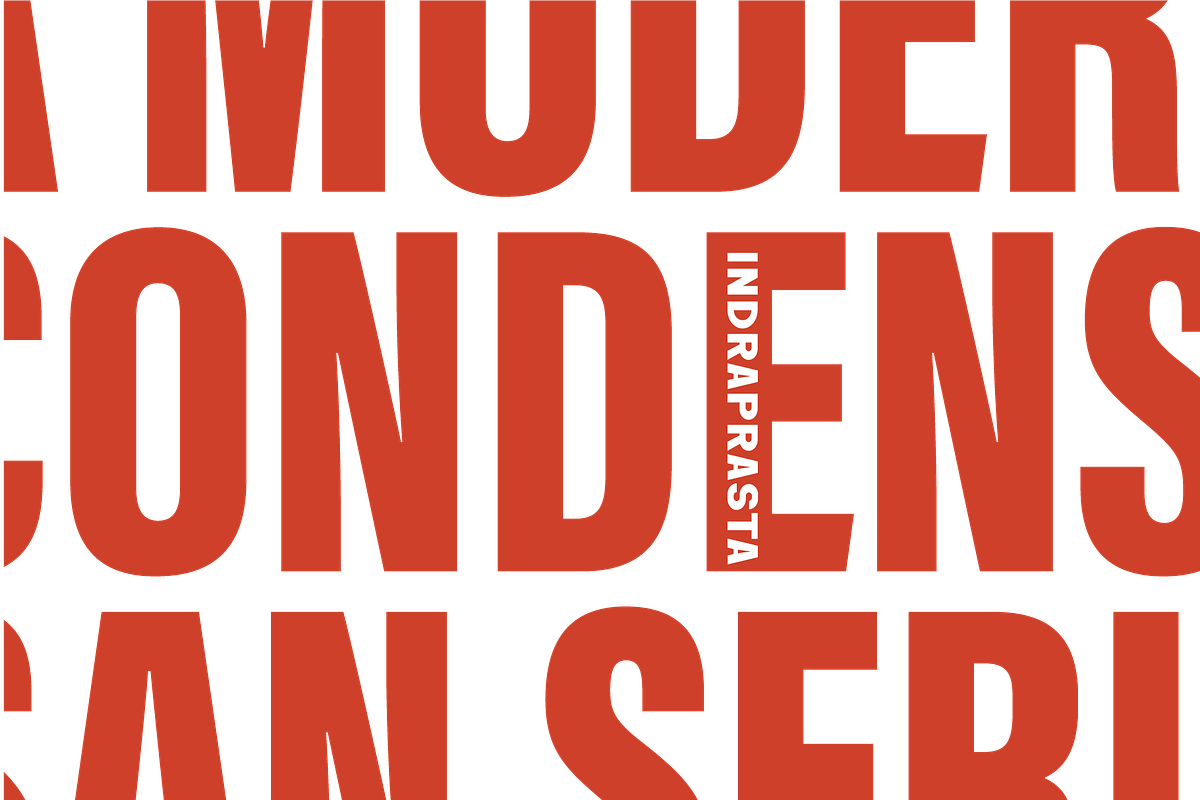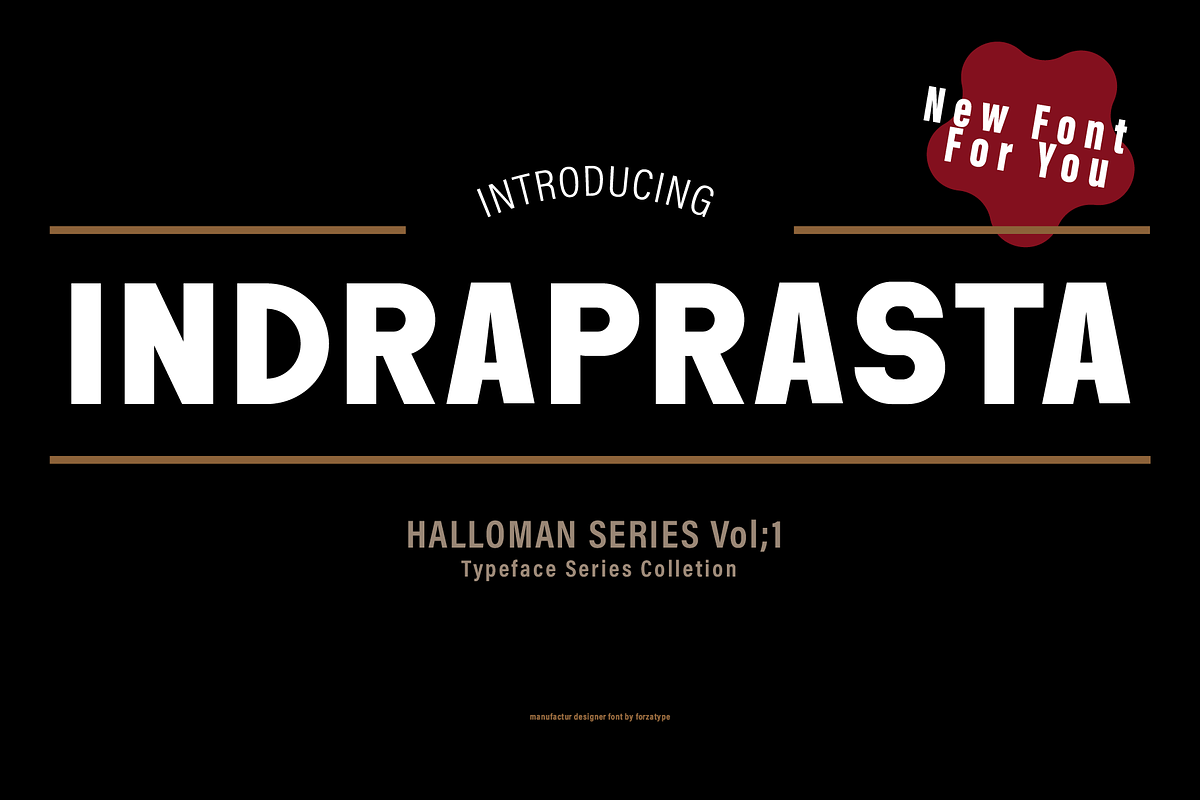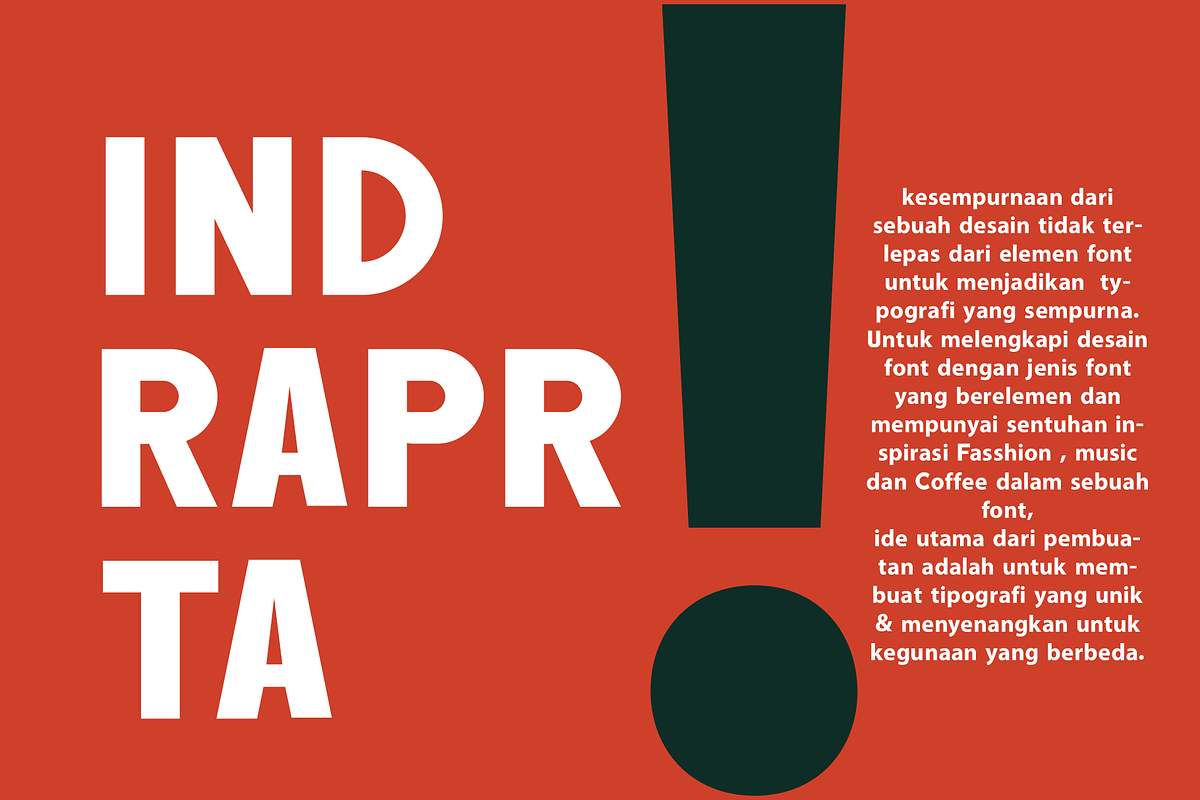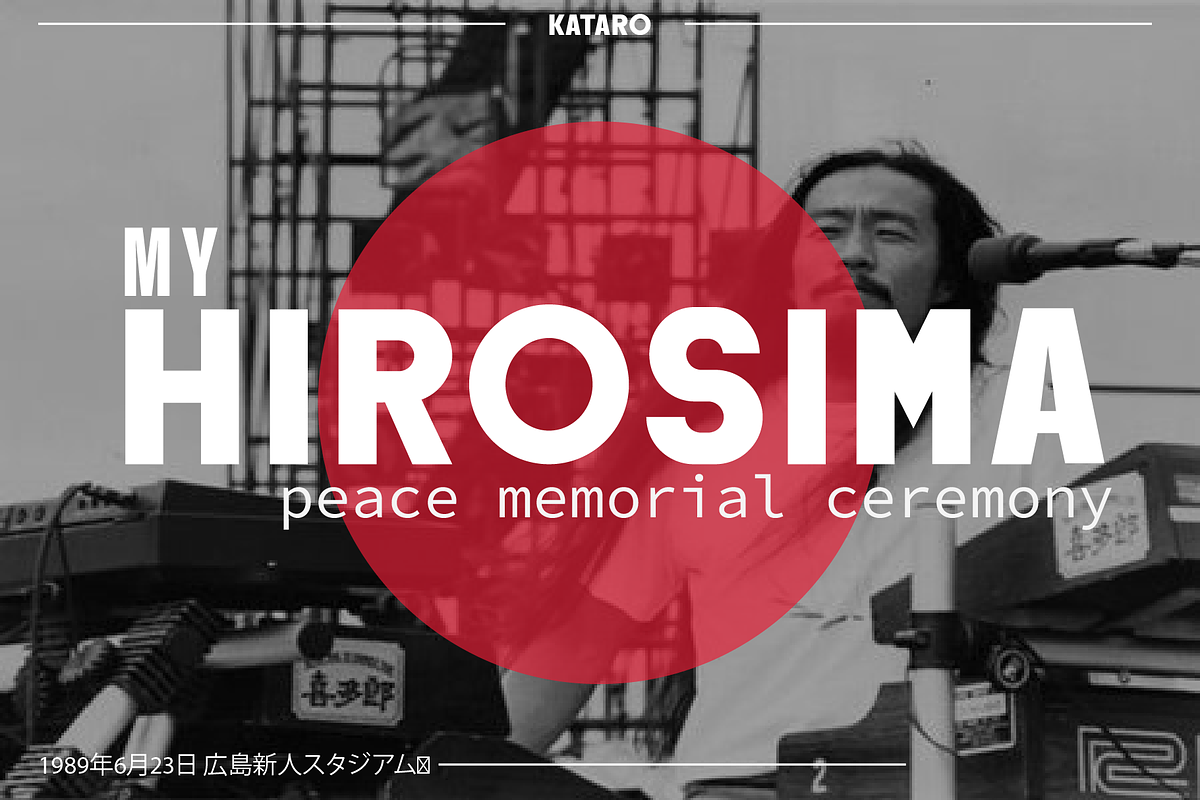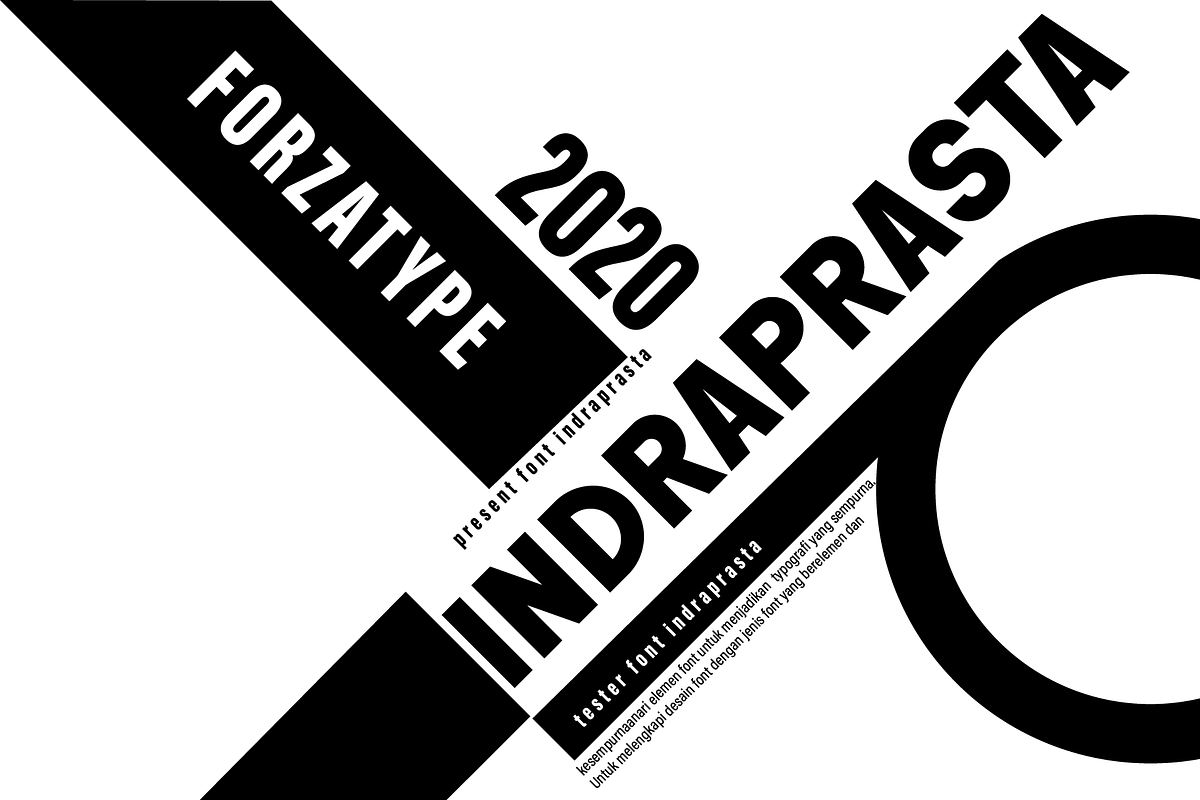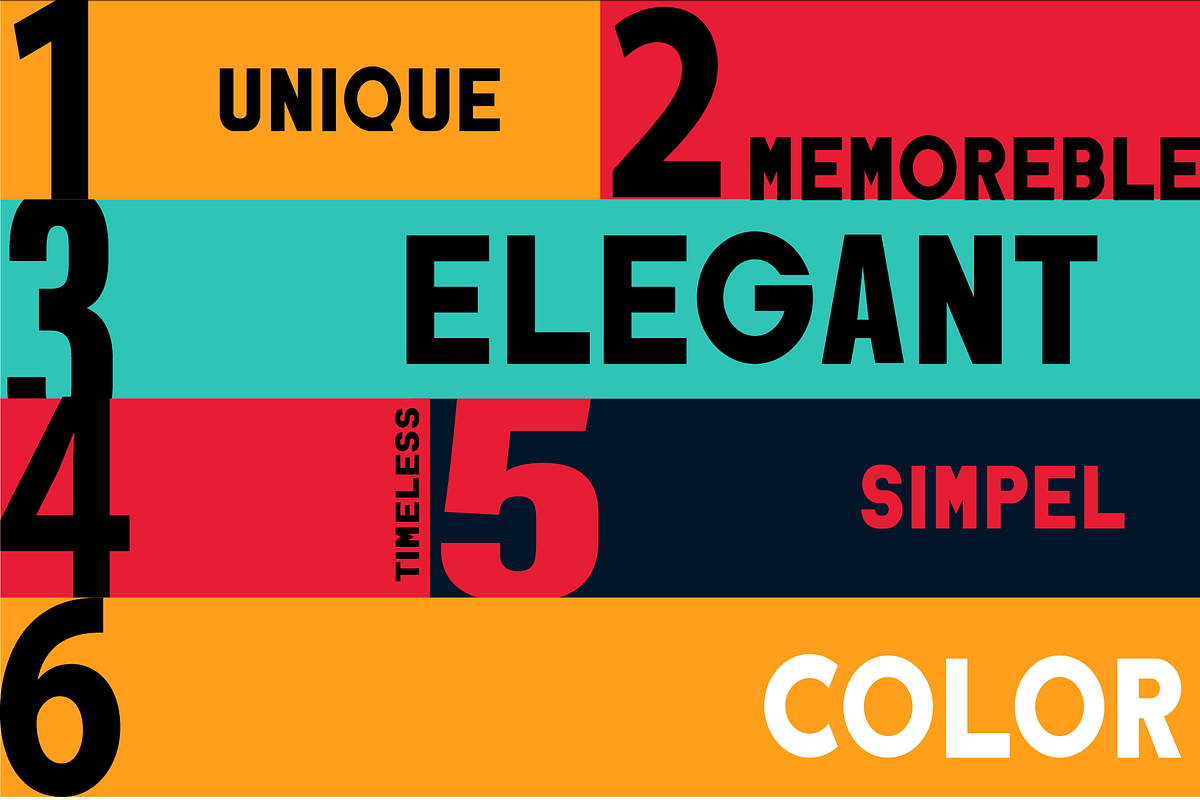
Halloman series Indraprasta
HALLOMAN letters in a sanserif style with visuals that are simple, luxurious, classic and suitable for your display design needs, such as making notice boards, brochures and taglines in identity logos, as well as displaying an impression that is pleasing to the eye